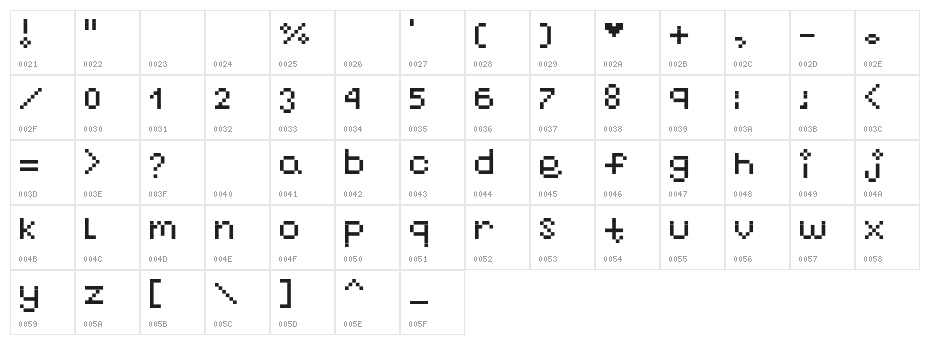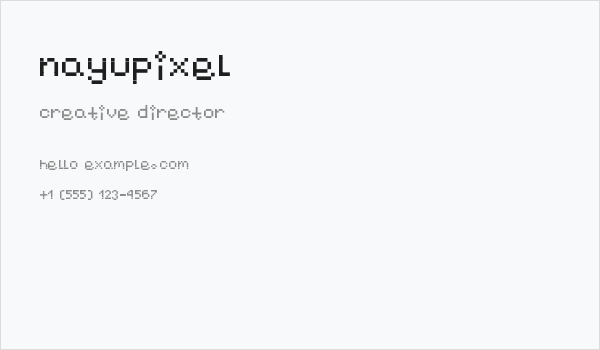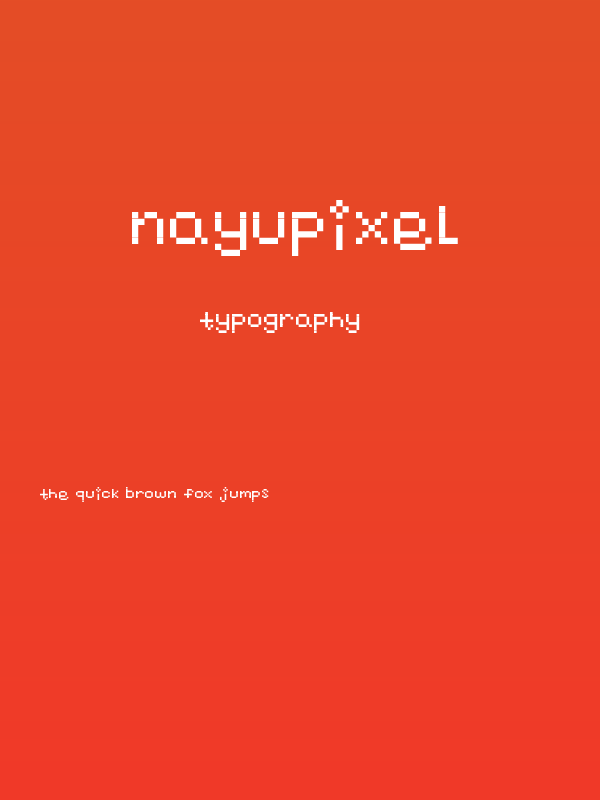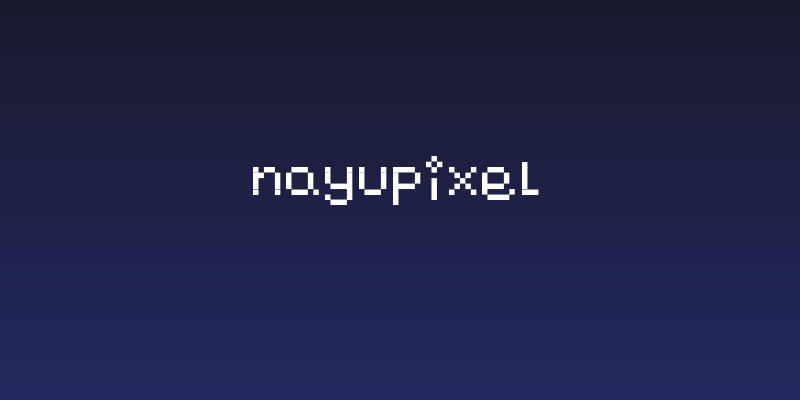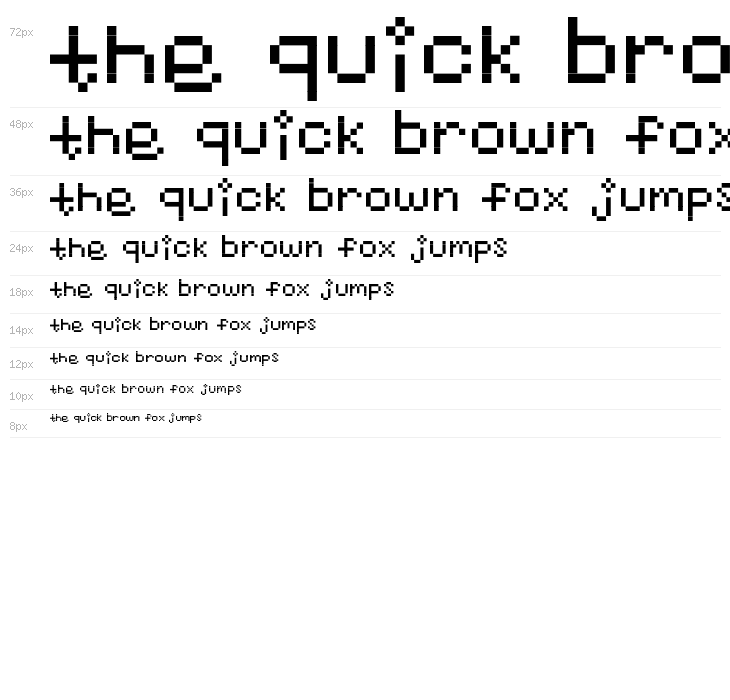
nayupixel Font
nayupixel Description
This font is a pixelated, monospaced typeface that evokes a retro, digital aesthetic reminiscent of early computer screens and video games. Each character is constructed with a uniform grid of square pixels, giving it a blocky and geometric appearance. The font maintains consistent spacing and alignment, ensuring readability even at smaller sizes. Its simplicity and uniformity make it ideal for projects that require a nostalgic or tech-inspired look. The characters are evenly spaced, and the design is straightforward, with no additional embellishments or curves, emphasizing its utilitarian and minimalist style.
| Use Case | Logos, Digital displays, Coding interfaces |
| Proposed Projects | Ideal for retro video games, digital art, tech-themed designs, and coding interfaces. |